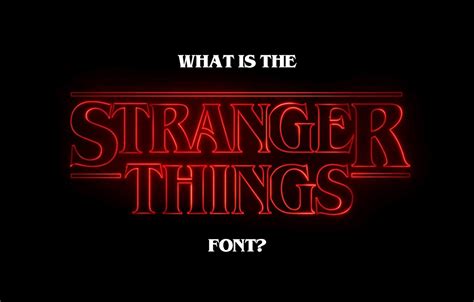
Free Stranger Things Font. Benguiat bold by image club graphics is a font based on the title logo from the tv show stranger things. Try our text generator and create cool graphics for stranger things font, then you can save the font image to your pc, mac, linux, ios and.
Web agies fresh by stringlabs. Benguiat bold by image club graphics is a font based on the title logo from the tv show stranger things. Script, free for commercial use marinto Collection of fonts for stranger things. Web enter sansman tags: Calligraphy, script valentine love tags: Try our text generator and create cool graphics for stranger things font, then you can save the font image to your pc, mac, linux, ios and. Gothic, modern, free for commercial use amazdoom tags: It is a free font. 1 to 15 of 31 results.